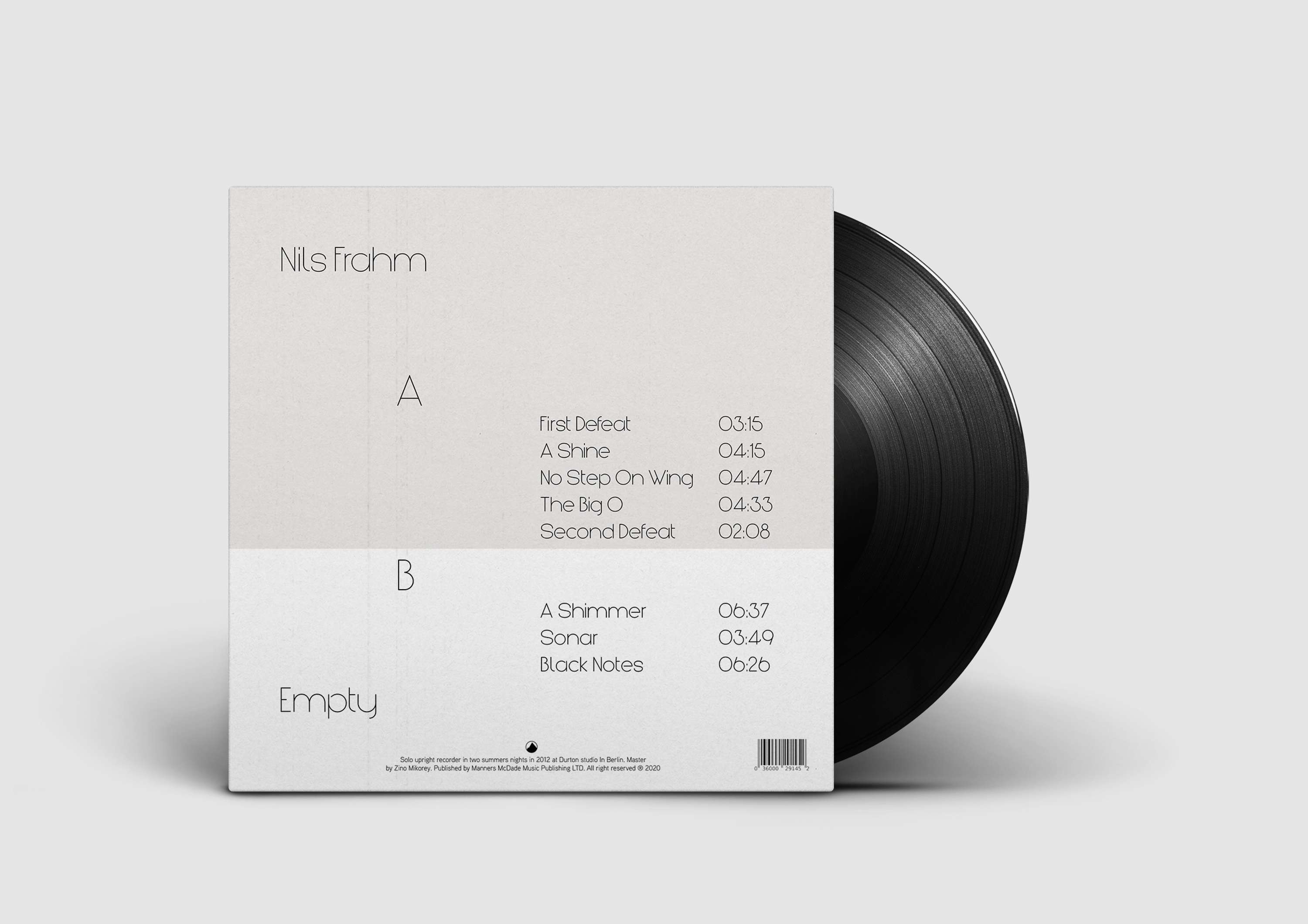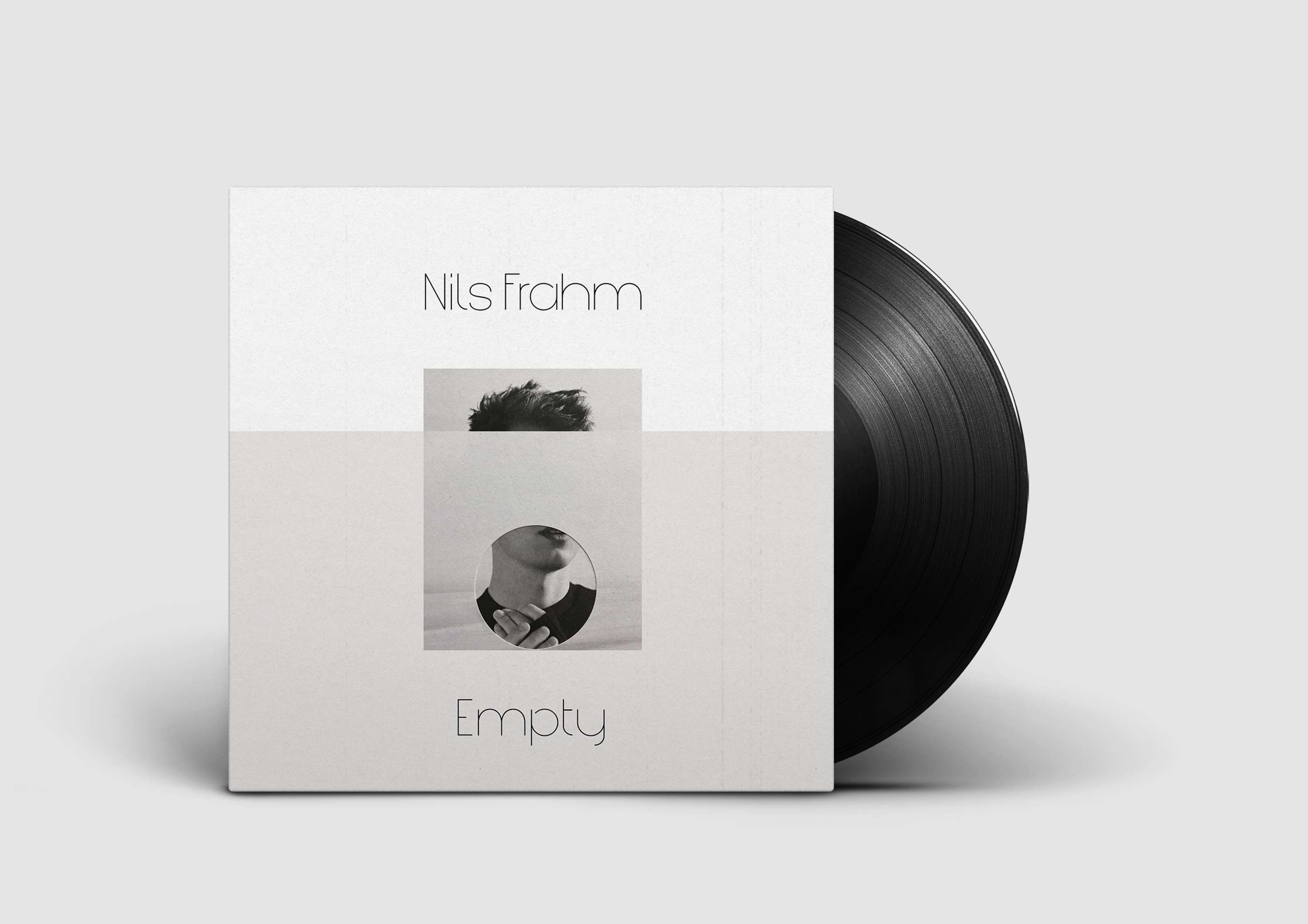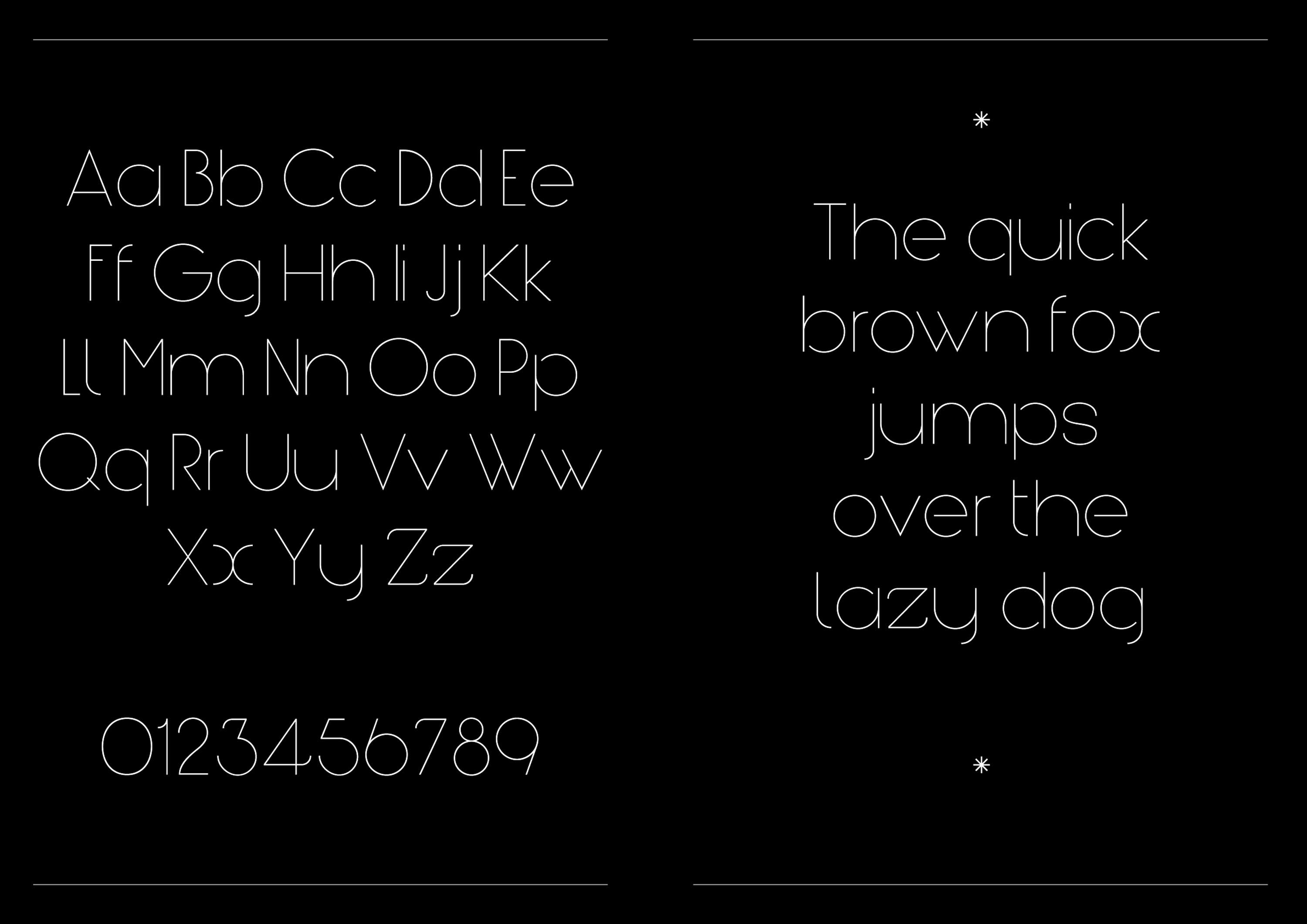
Empty Titling (typeface design)
Empty is a typeface inspired by the German composer Nils Frahm's album Empty. By referencing ITC Avant Garde by Lubalin, I created a light and geometric titling typeface. Front cover design by me.
Empty Titling (typeface design) by Leonardo Collina